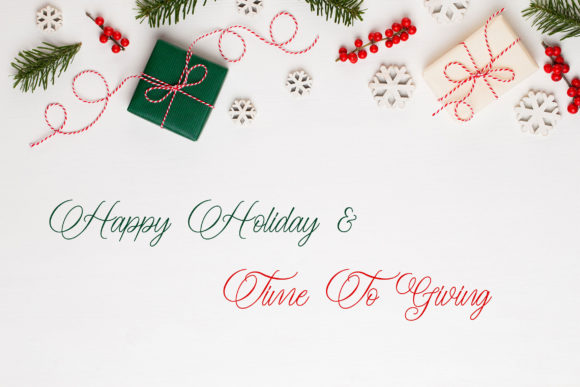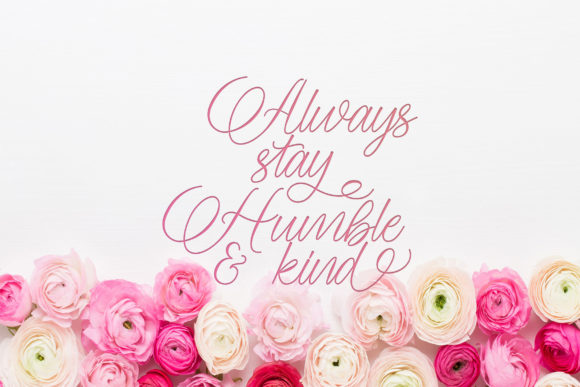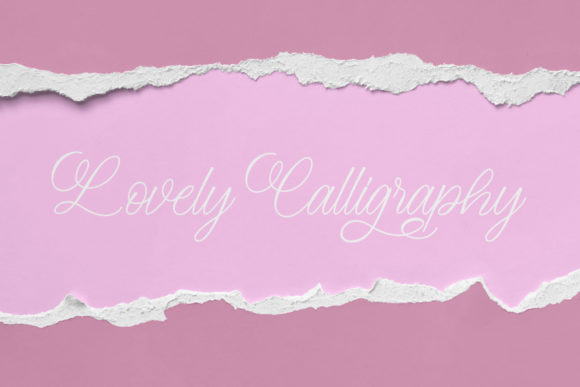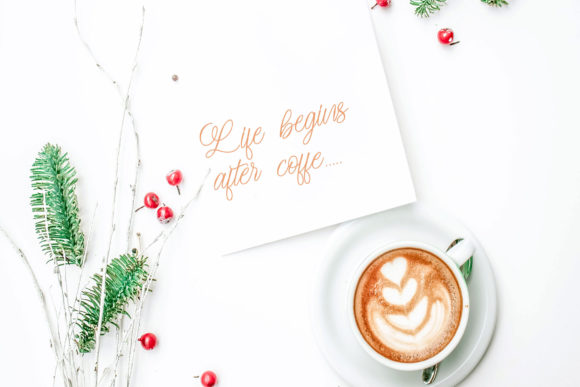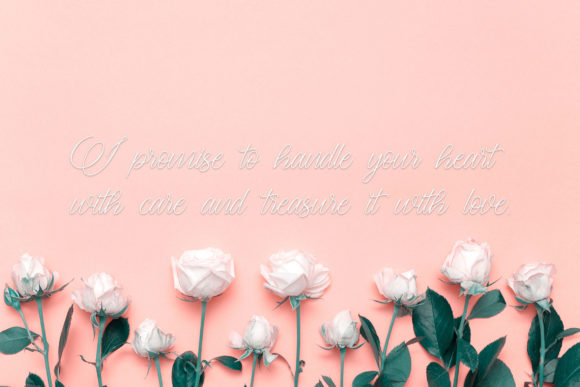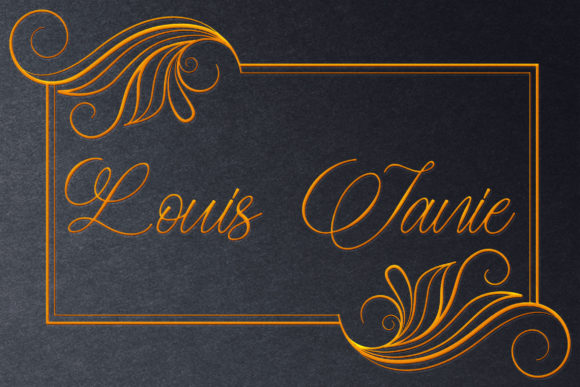
Introduction to Meryliana Font
As a designer, there’s nothing quite like the thrill of bringing a creative project to life. Whether it’s a wedding invitation, a heartfelt thank you card, or a bold logo, the right font can make all the difference. And for those seeking a touch of elegance and whimsy, the Meryliana Font is a treasure trove of possibilities.
With its gentle, handwritten curves and distinct flair, the Meryliana Font is the perfect addition to any design. Its versatility makes it shine on everything from wedding invitations to business cards, and its PUA encoding ensures that every glyph and swash is accessible with ease. Whether you’re working on a high-quality design project or simply looking for a free download to spice up your next creative endeavor, the Meryliana Font is an invaluable resource that’s sure to delight.
Key Features of Meryliana Font
- High-quality design with a transparent background, ideal for creative projects and design resources.
- Includes a wide range of characters and glyphs, making it suitable for various languages and design applications.
- Features a unique and modern design style, perfect for adding a touch of elegance to any creative project.
- Supports resolutions up to 300 DPI, ensuring crisp and clear typography in high-resolution designs.
- Comes in a single weight, making it easy to use and integrate into various design projects.
- Designed to be highly legible and readable, even at small font sizes, making it perfect for body text and headings.
Honest Review: Meryliana Font
I recently had the chance to work with the Meryliana Font, and I’m excited to share my thoughts on this design resource. As a designer, I’m always on the lookout for high-quality fonts that can elevate my creative project and give it a professional touch.
The Meryliana Font is a beautiful script font that is perfect for titles, headings, and other text elements. It’s available for free download, making it a fantastic addition to any designer’s toolkit.
- ✨ Beautiful, high-quality design that is perfect for creative projects
- ✨ Compatible with a wide range of operating systems and devices
- ✨ Includes a transparent background, making it easy to use with any design element
- ⚠️ Limited character set, which may not be suitable for long texts
- ⚠️ Not suitable for use as a body font, due to its script nature
Overall, I’m impressed with the Meryliana Font and would definitely recommend it to designers looking for a high-quality, free font for their creative project.
Tips for Getting the Most Out of Meryliana Font
To get the most out of the Meryliana Font, use it on a transparent background to create a clean and minimalist design. You can also pair it with other fonts to create a unique typography combination.
The Meryliana Font is perfect for creative projects like logos, branding materials, and social media graphics. Its high-quality design makes it an ideal choice for designers who want to create visually appealing and professional-looking designs.
Alternatives to Meryliana Font
When to use: Great Vibes Font is ideal for invitations, greeting cards, and other creative projects where a handwritten feel is desired. It compares to Meryliana Font in its high-quality design and versatility, but has a more relaxed and casual tone.